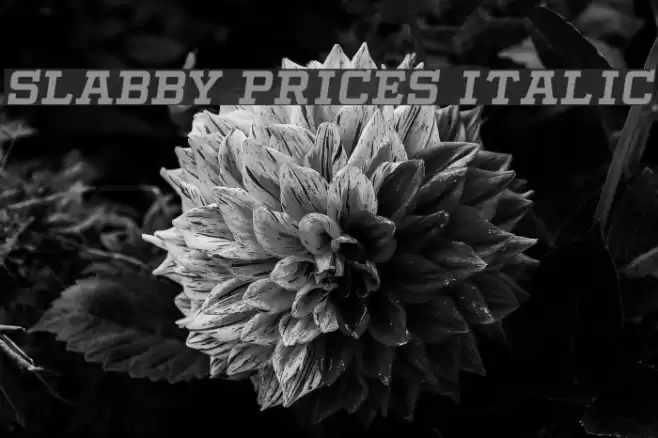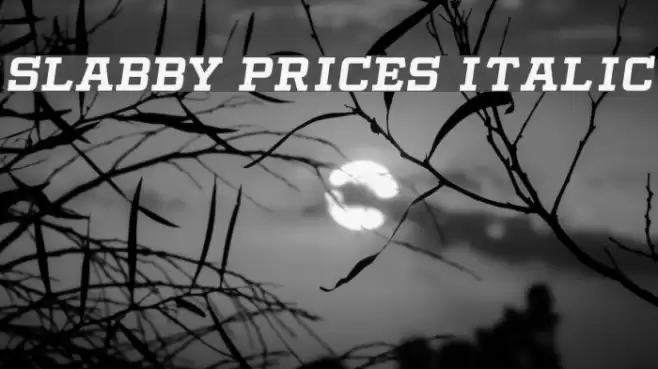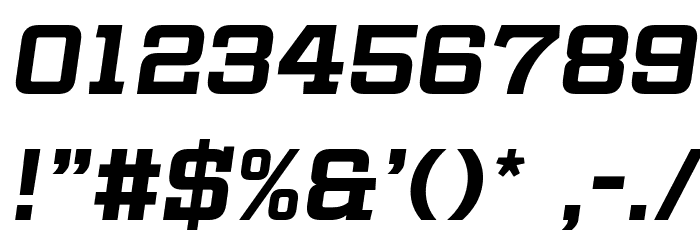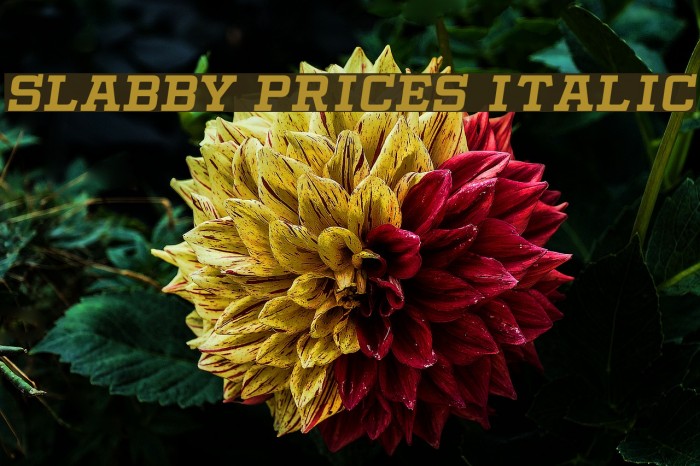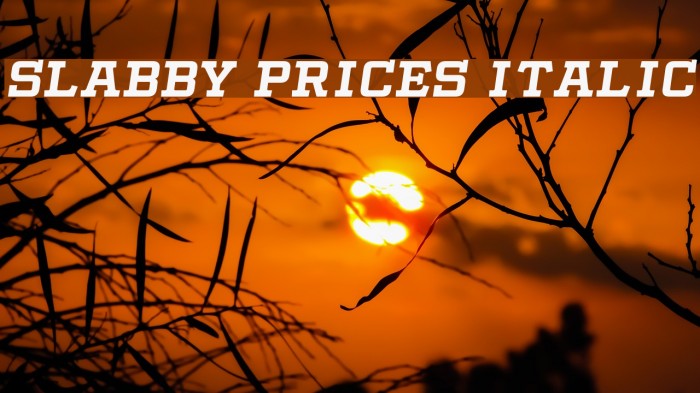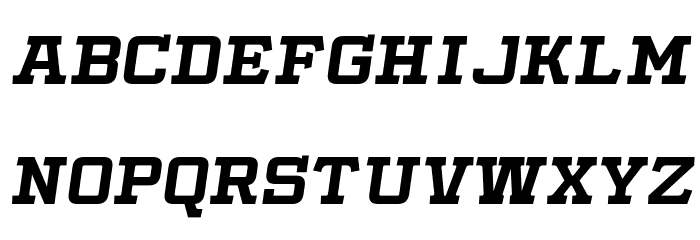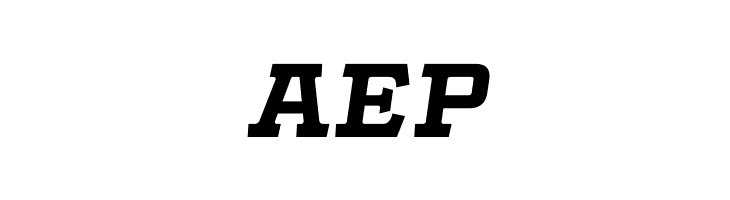
Slabby Prices Italic Font
Slabby Prices Italic Description
This font features a bold, italicized style with a strong slab serif design. The characters are robust and convey a sense of strength and stability, making it ideal for impactful headlines. The uppercase letters are prominent and assertive, while the lowercase letters maintain a consistent style that complements the overall look. The numerals are equally bold, ensuring they stand out in any context. Special characters are designed with the same attention to detail, providing a cohesive appearance across all glyphs. The italic slant adds a dynamic feel, enhancing the font's versatility.
A bold, italic slab serif font with a strong and dynamic presence.
- Proposed Projects: Ideal for branding, advertising, posters, and any project requiring a bold statement.